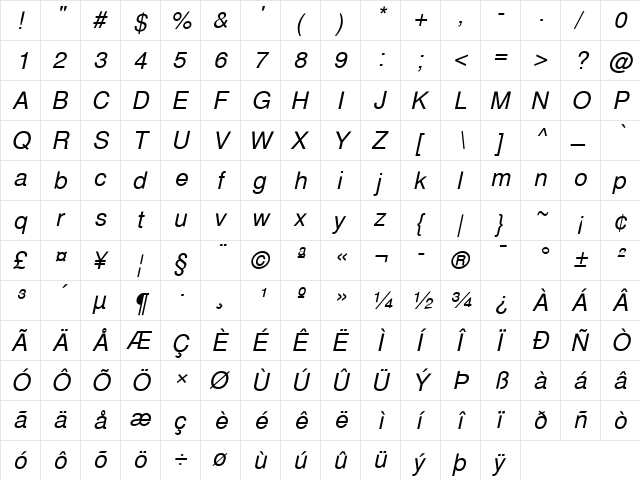
Nimbus Sans L Regular
| Foundry | by URW |
Design Context for Nimbus Sans L Typeface
Nimbus Sans L is a composed and adaptable typeface that performs quietly and consistently across a wide range of design contexts.
Pro Tip: Use Nimbus Sans L in both headline and body roles to test its range before committing to a single application.